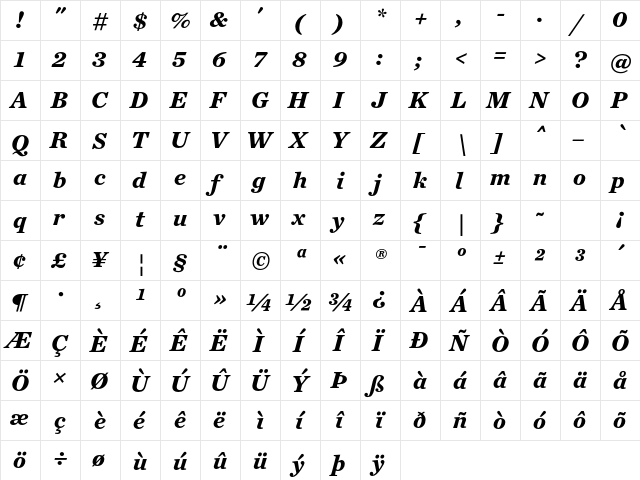
Chronicle Text G2 Bold Italic Font Preview
| Foundry | Hoefler & Frere-Jones |
| Designer | Hoefler & Frere-Jones |
Design Context for Chronicle Text G2 Typeface
Chronicle Text G2 offers clean, dependable letterforms without strong stylistic allegiance, making it a practical choice for designers who need flexibility. The dynamic lean of this cut emphasises speed and emphasis in any layout. The heavy weight commands attention and anchors typographic hierarchies.
Pro Tip: Try Chronicle Text G2 for annotation and caption copy alongside an upright companion — the contrast in angle creates a dynamic but ordered typographic system.